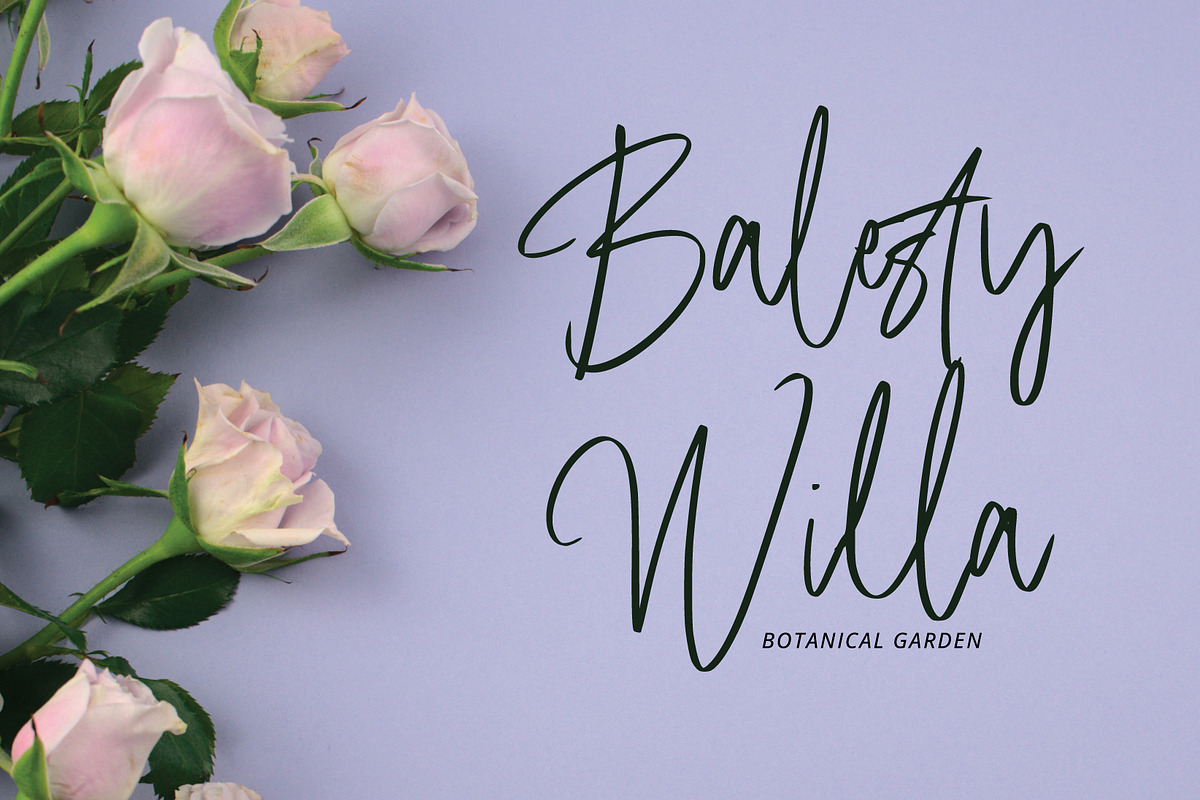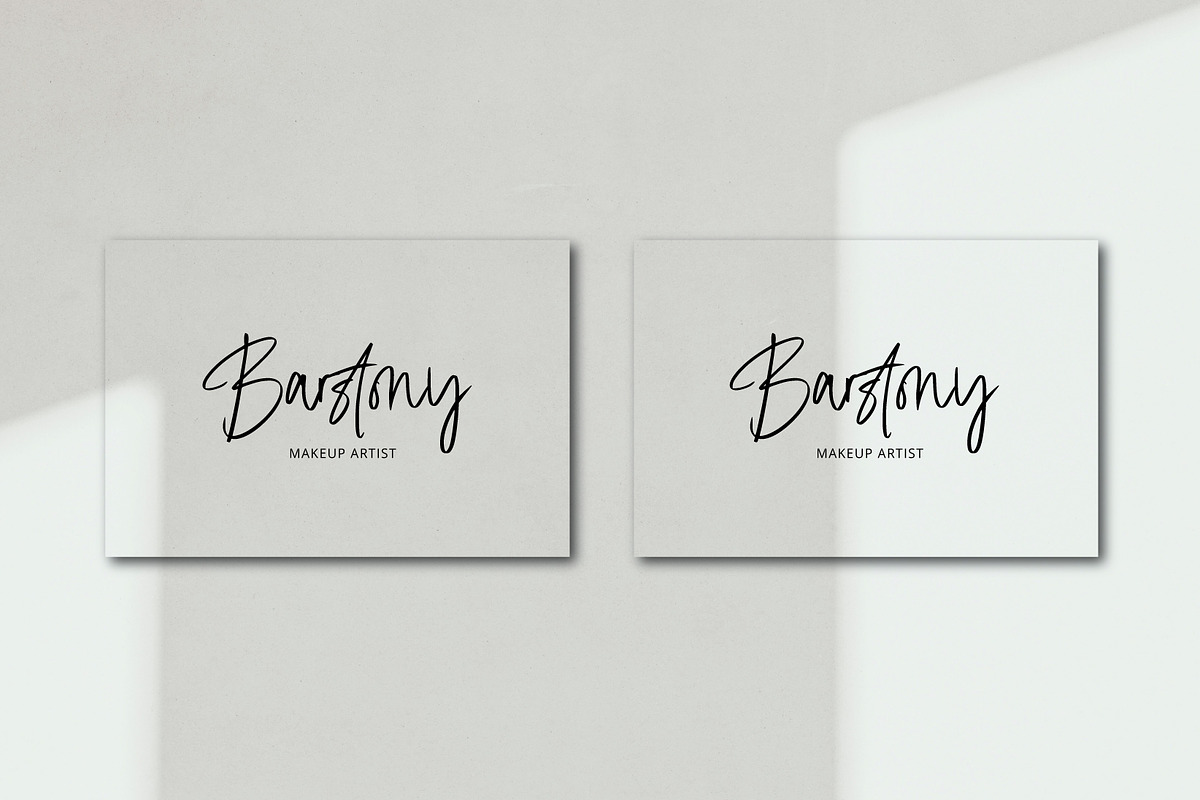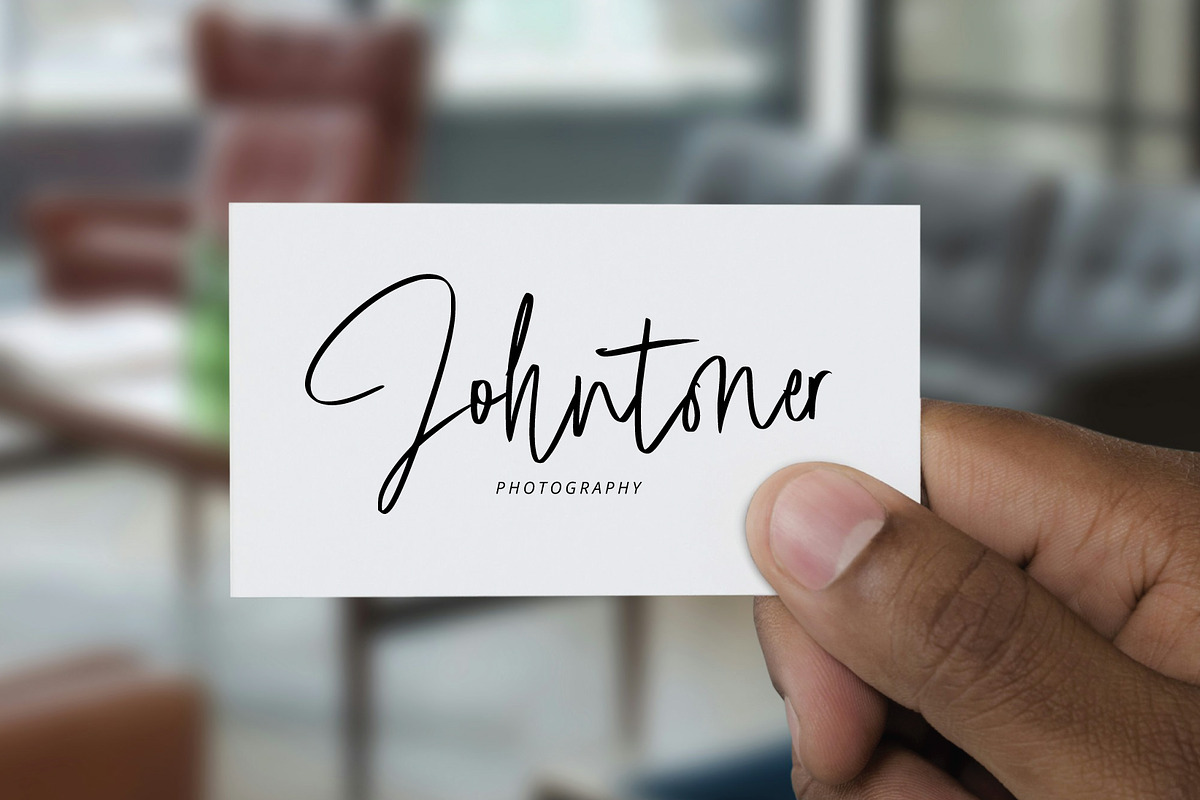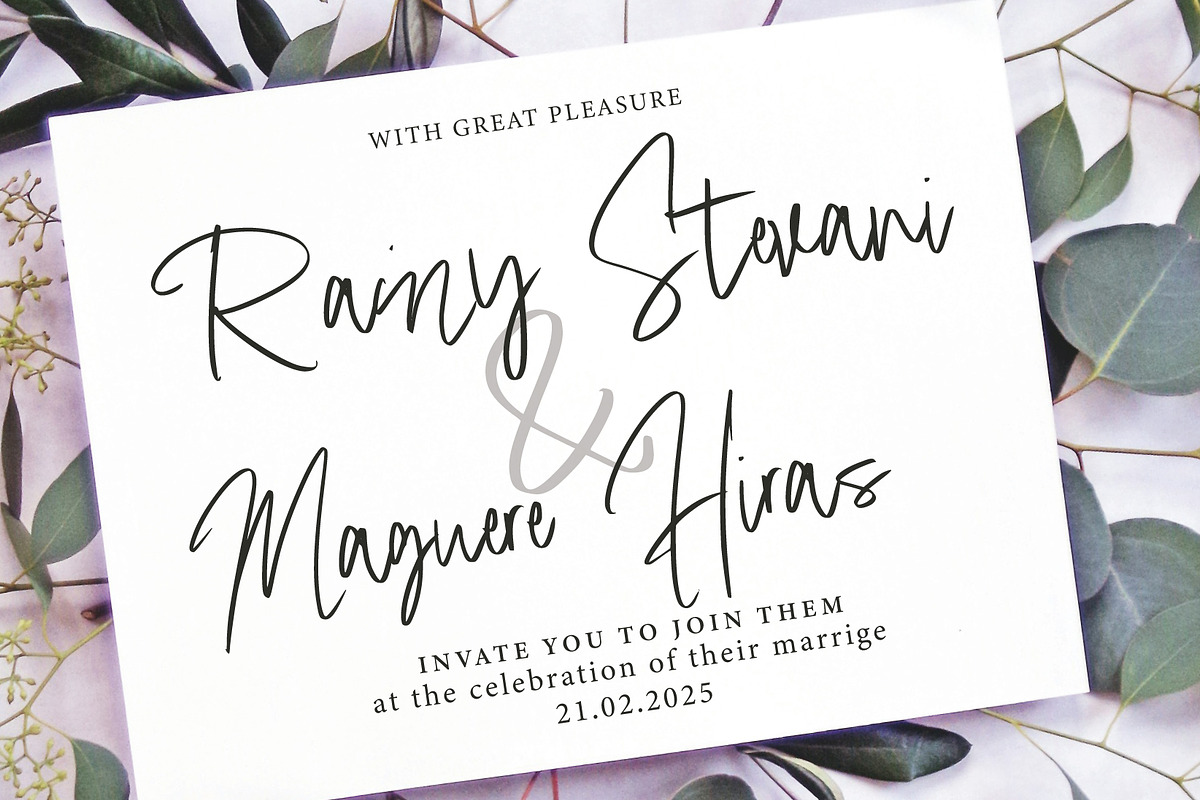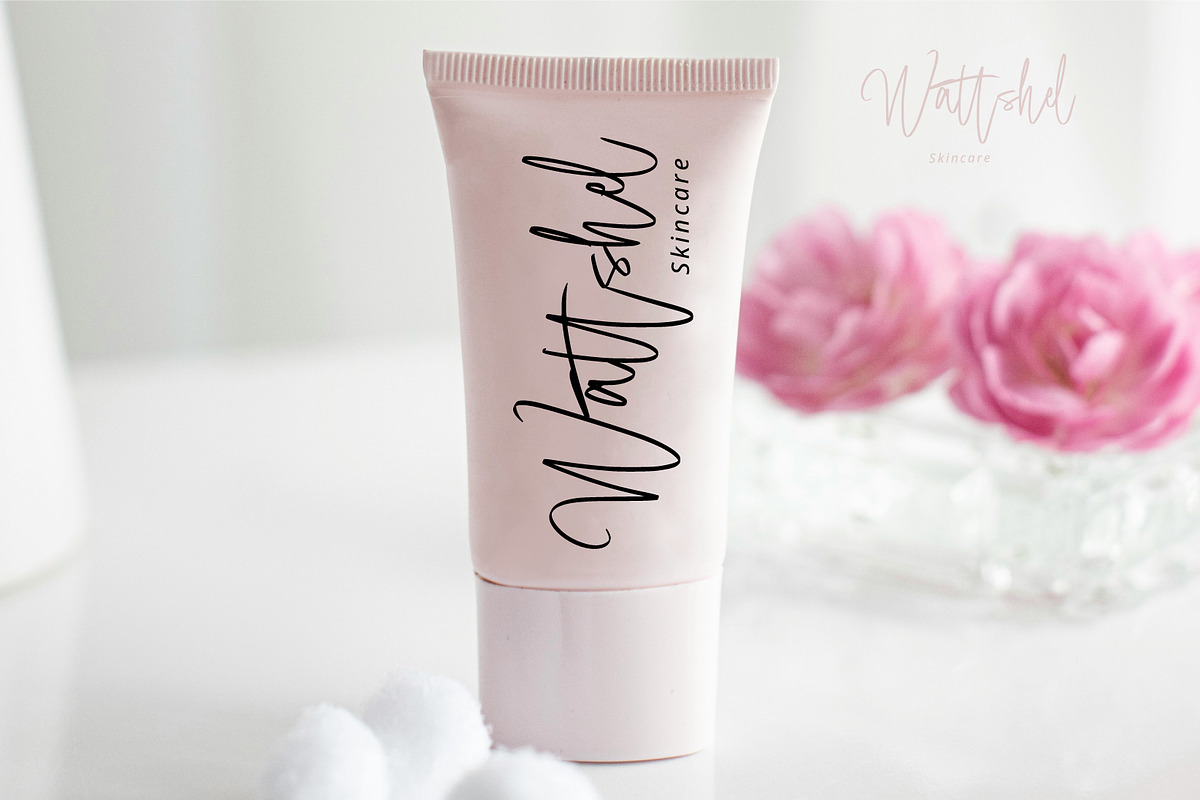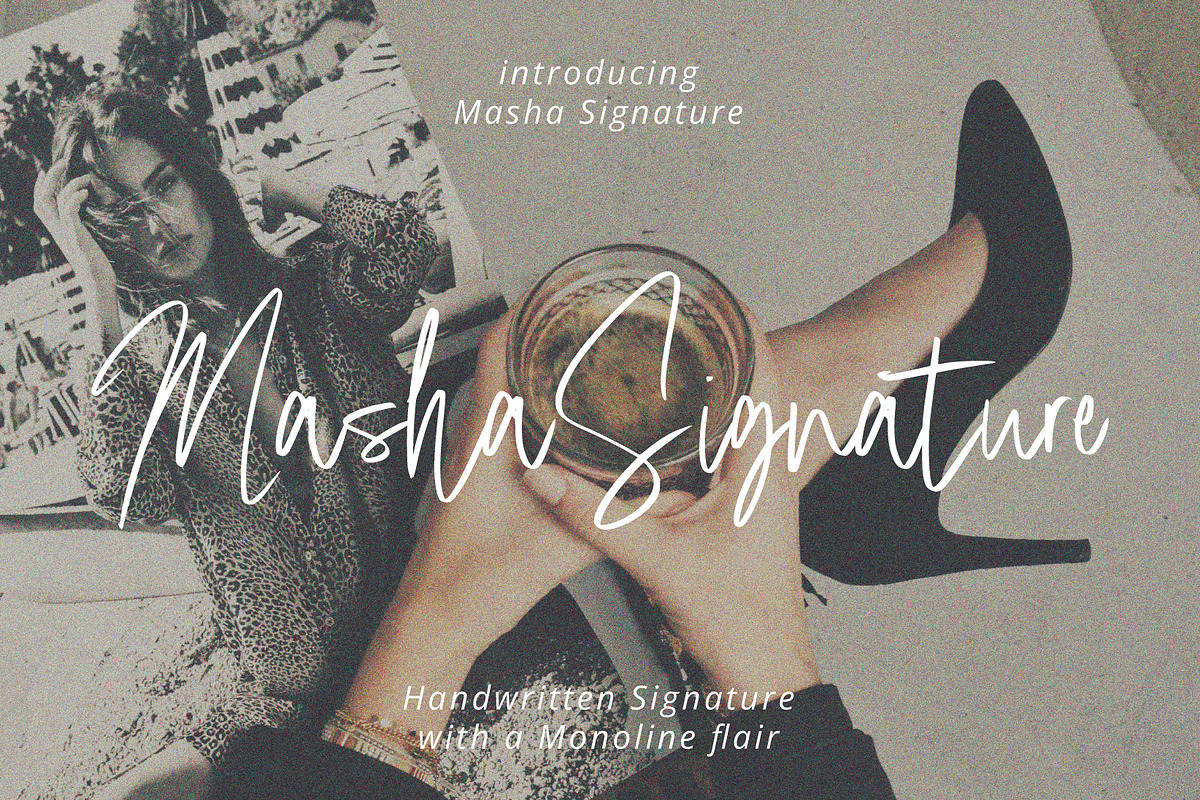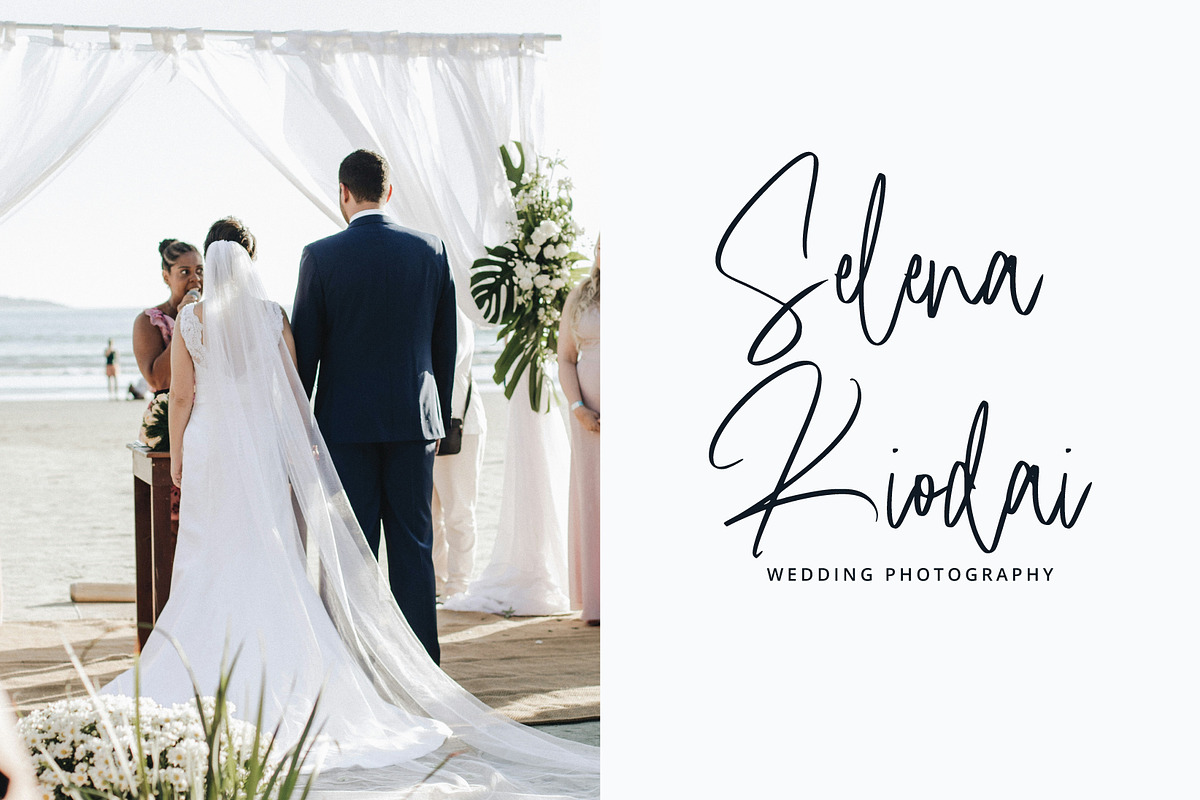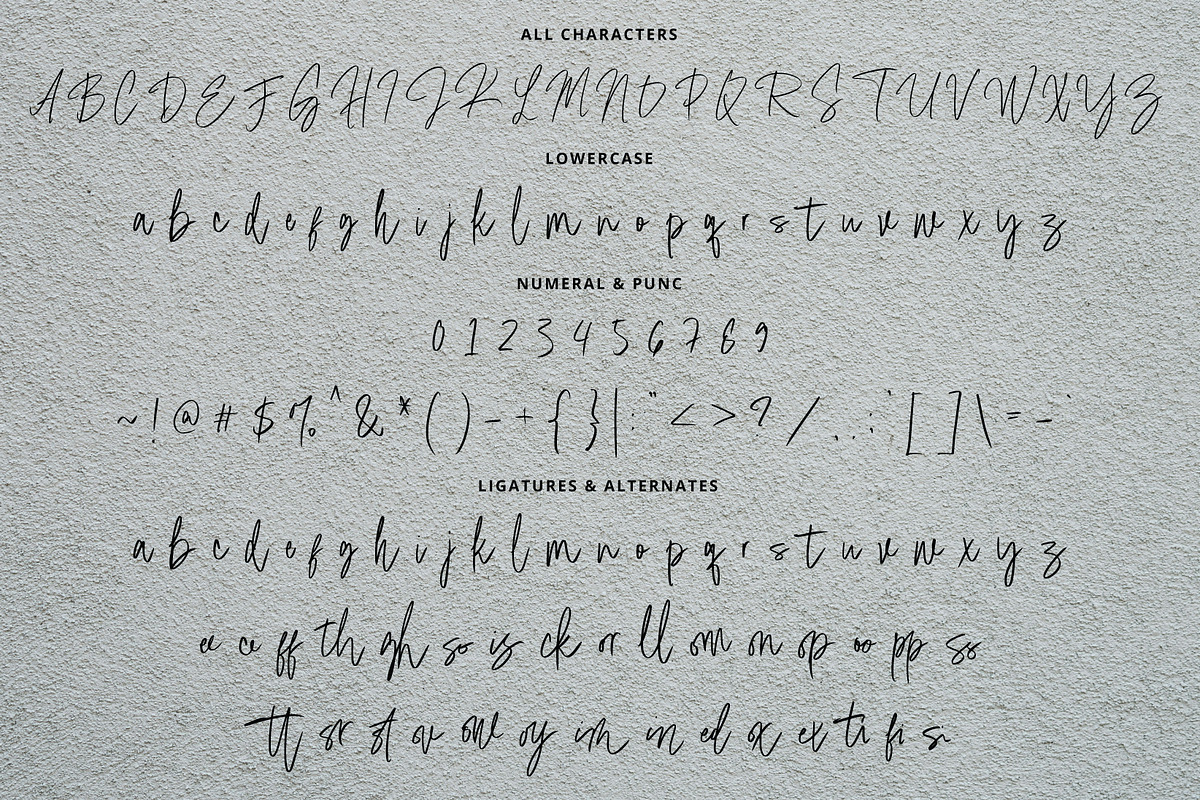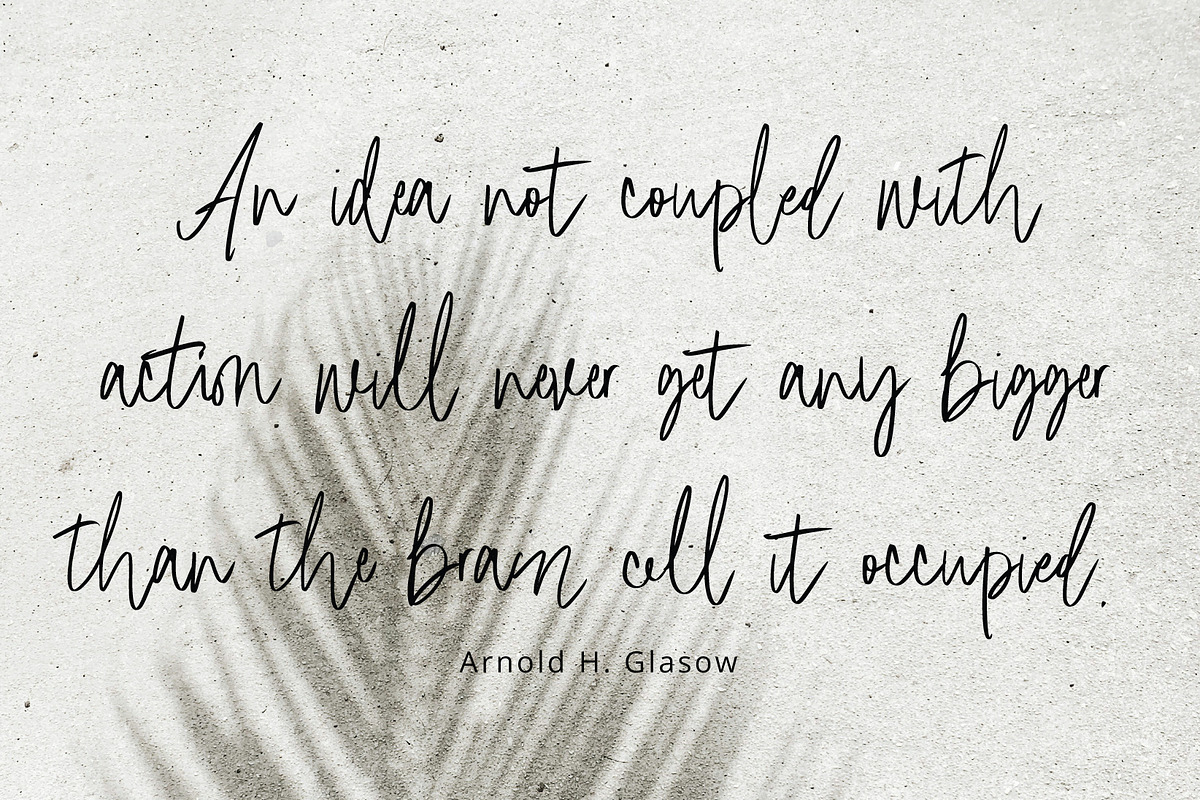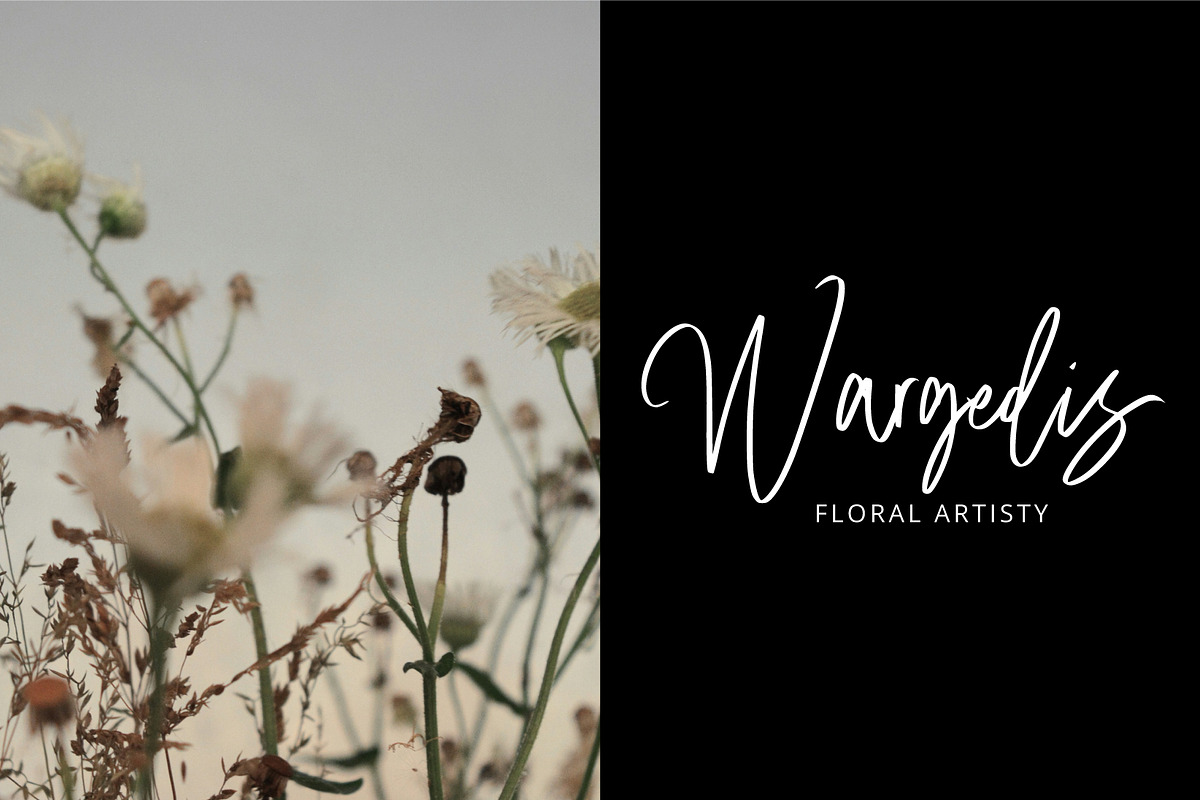
Masha Signature
Masha Signature is a refined, elegant script font with a monoline touch, designed to add sophistication and charm to any project. Its flowing, handwritten style makes it ideal for branding, wedding invitations, logos, and stylish social media graphics. Whether you’re crafting a personal signature or a luxury brand identity, Masha Signature delivers effortless beauty and professionalism.